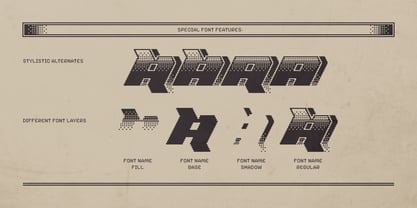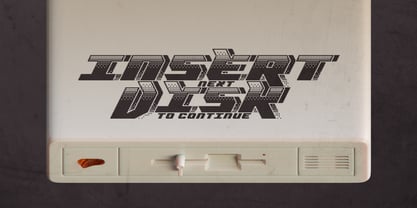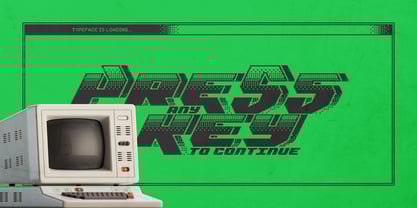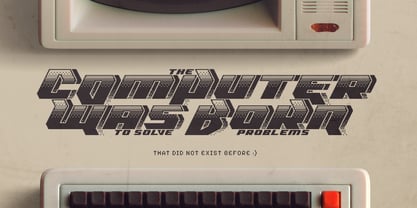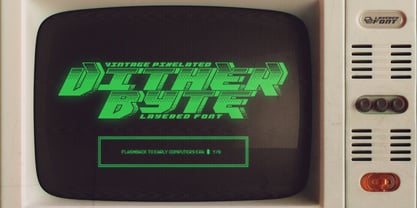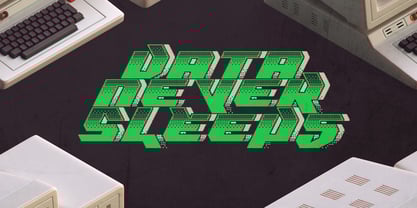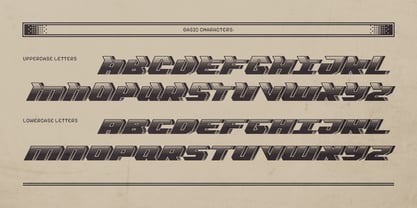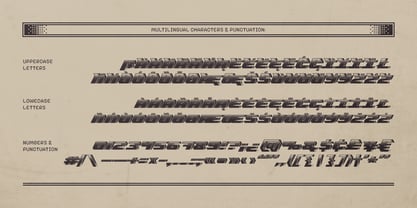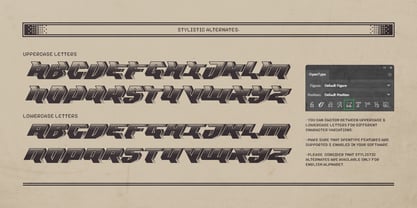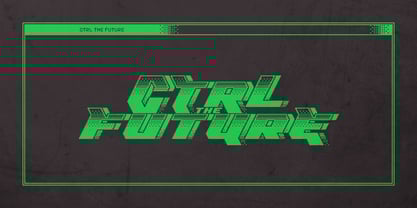
Dither Byte
by Gleb Guralnyk
Introducing Dither Byte Font — a typeface that channels the iconic look of early 1980s computer displays and arcade machines. With blocky characters and a dithered pixel pattern, it captures the retro charm of vintage tech and 8-bit aesthetics. Perfect for designs that evoke nostalgia, digital minimalism, or classic gaming vibes.
Using OpenType features, you can access 52 stylistic alternates to create more dynamic lettering compositions. The font set also includes separate files for different layers, making recoloring quick and easy. Dither Byte supports multiple languages — check the screenshot to view the full character set!
A lot of my fonts inherits vintage graphic styles but nevertheless I don't like to stick to one theme for a long time. That's why I'm trying to create fonts in different styles and from different eras, from old gothic calligraphic to modern handwritten scripts, from medieval antique to minimalist sans-serif typefaces. It's always interesting to design something new, and expand my skills in novel font design directions.